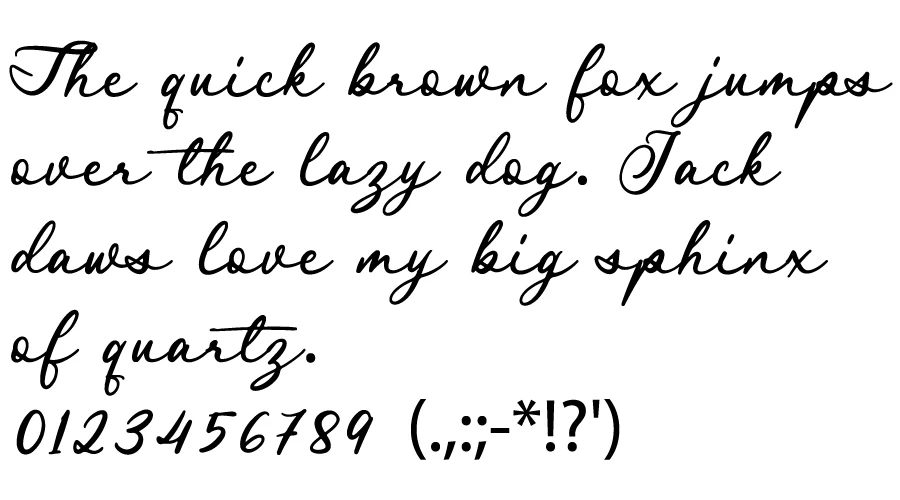
Hello everyone, we’re back with Royal Stamford Script Font, a gorgeous script and handwritten Font. Runsell studio created and shared the Font. Royal Stamford is a sophisticated handwriting font with a characteristic curve on the inside and other unique qualities that are ideal for authentic-style projects. The typeface is perfect for any royal endeavor, such as portraying a king or queen, as its name suggests.
It’s a handwritten script font with upper and lowercase letters, digits, and a wide variety of punctuation. This Font is adaptable, and you can use it to suit your needs. The Font comes in two different formats: TTF and OTF. It works well with various operating systems, including MAC, PC, and Linux. The features of this fantastic font are Basic Latin, Latin-1 Supplement, Latin Extended-A, Latin Extended-B, ligatures, OpenType features, stylistic alternates, and swashes, ligatures, OpenType features, stylistic alternates, and swashes, all of which make this typeface standard for any designs.
Royal Stamford is ideal for signatures, stationery, logos, typography quotes, magazine or book covers, website headers, clothes, branding, and packaging design, among other applications. The beautiful Script and handwritten typeface will look fantastic as a background with an image or era of a king or queen on it.